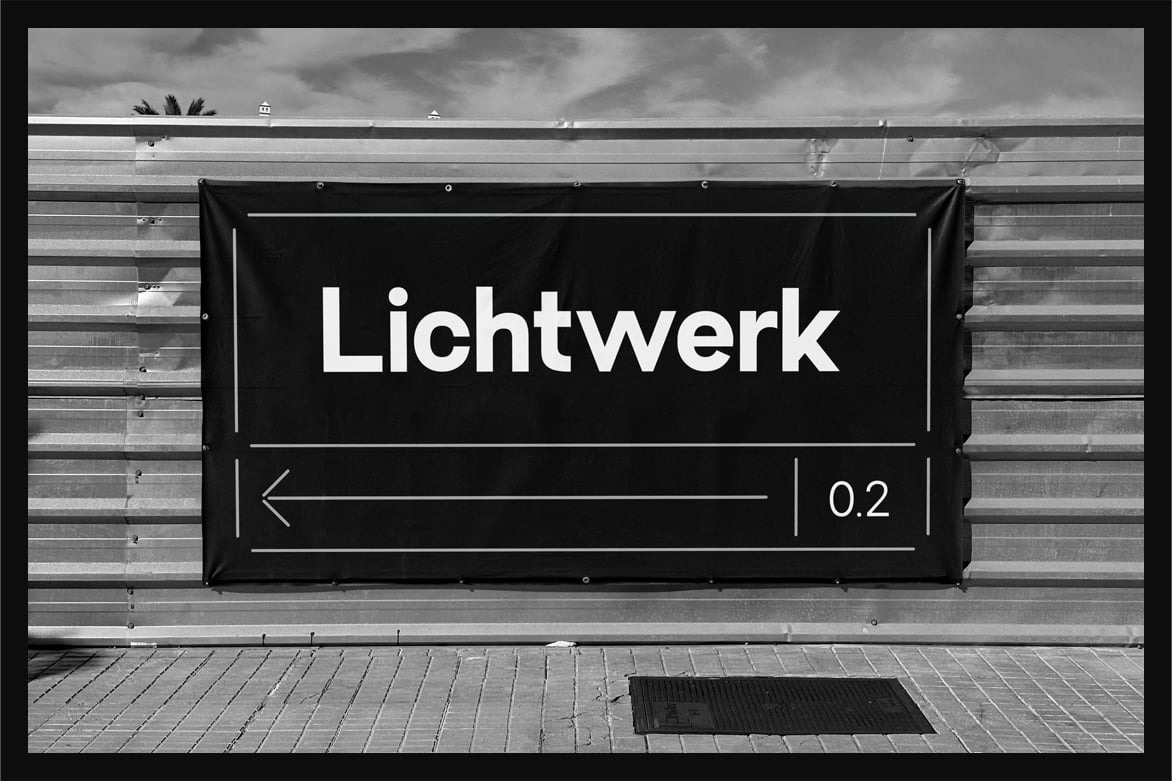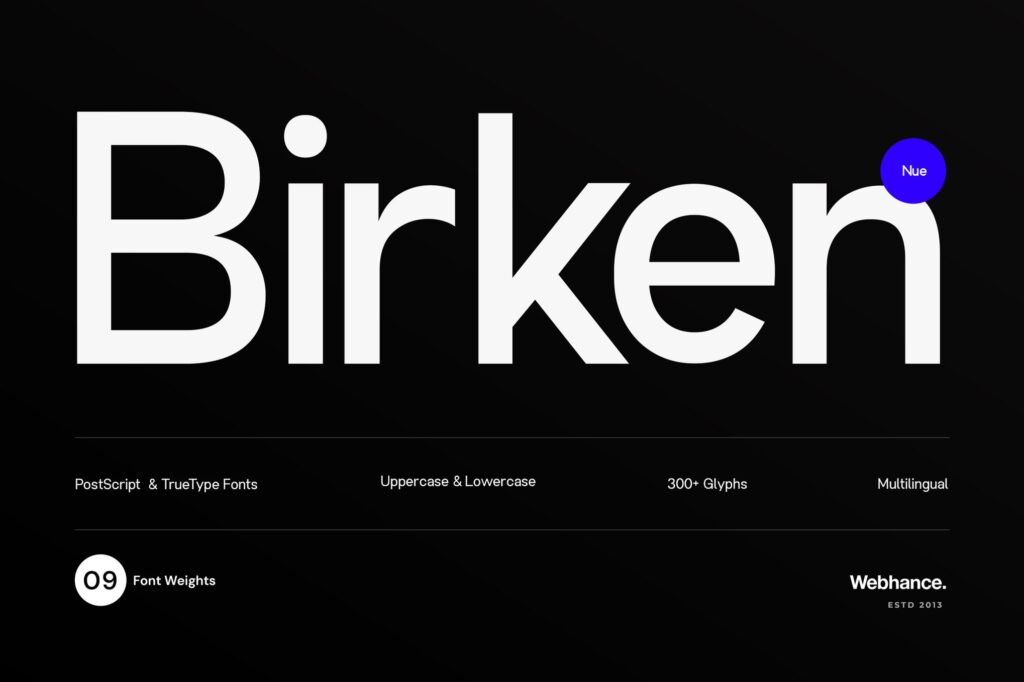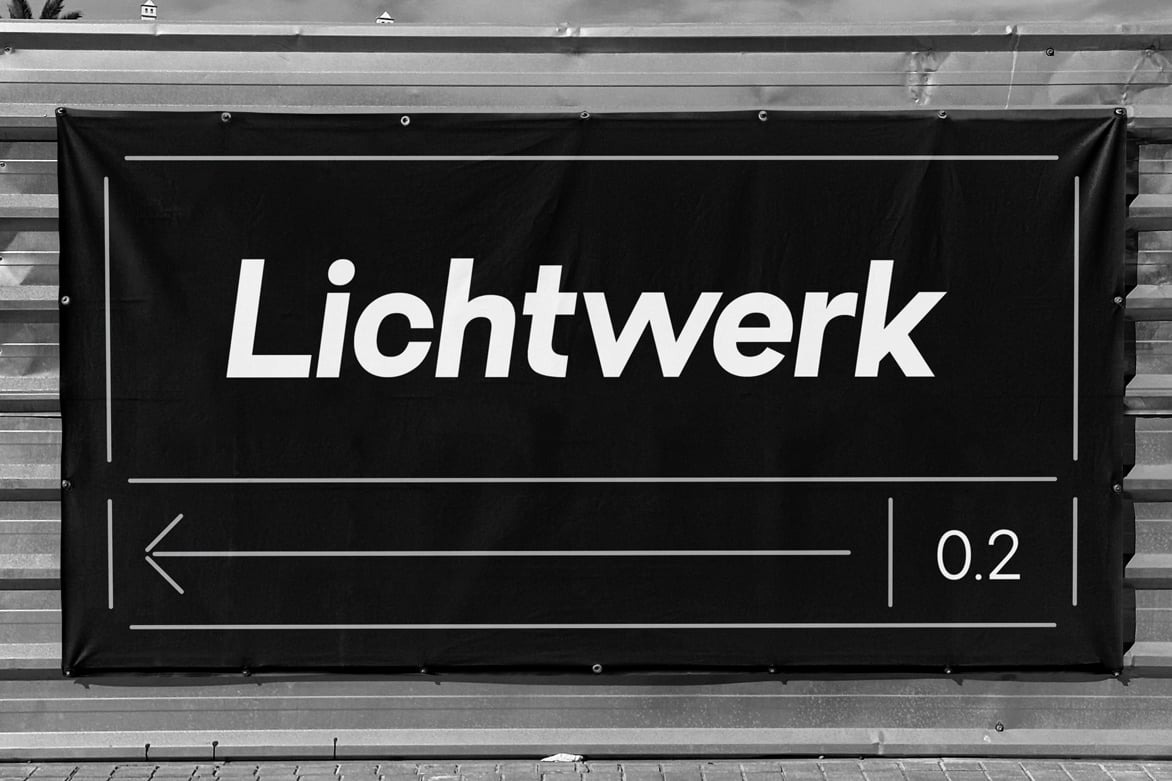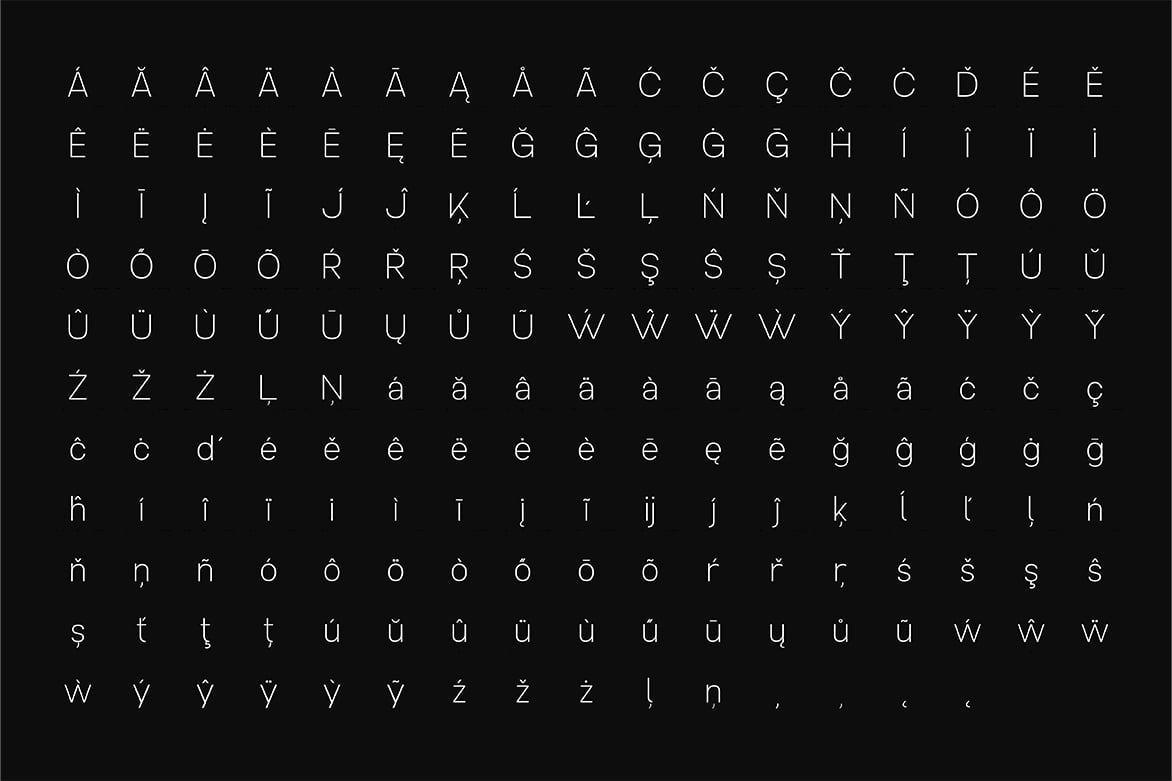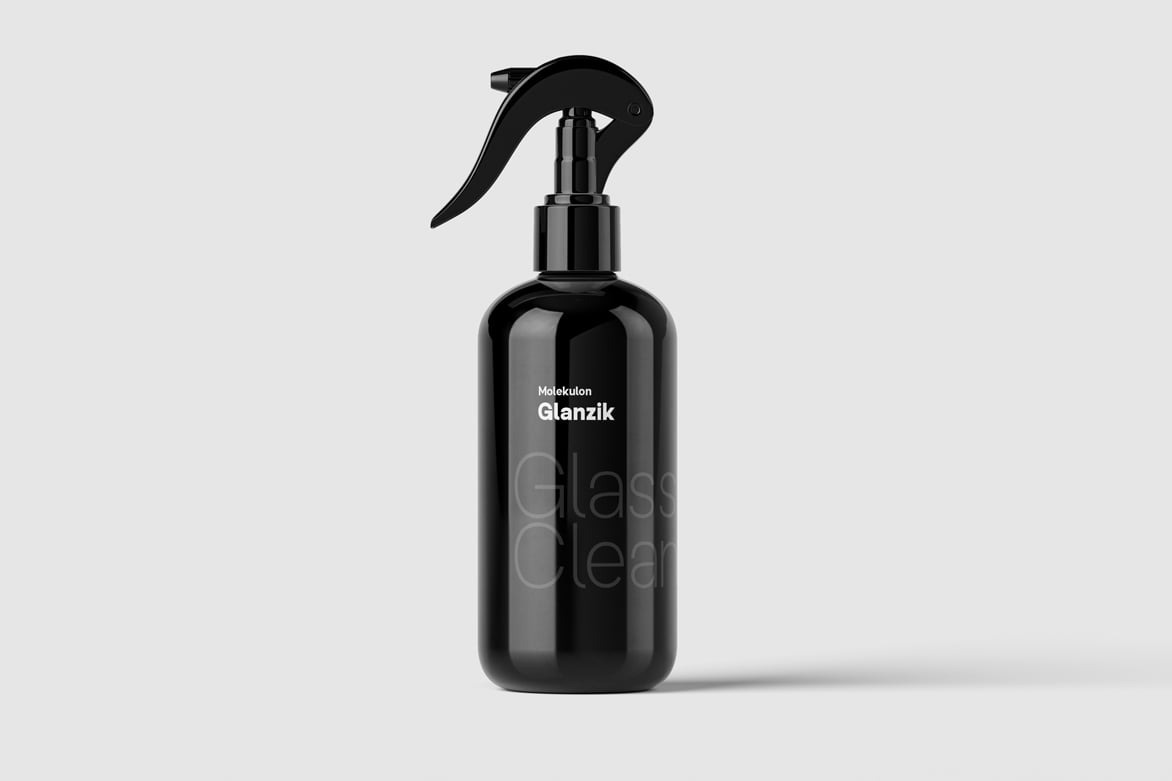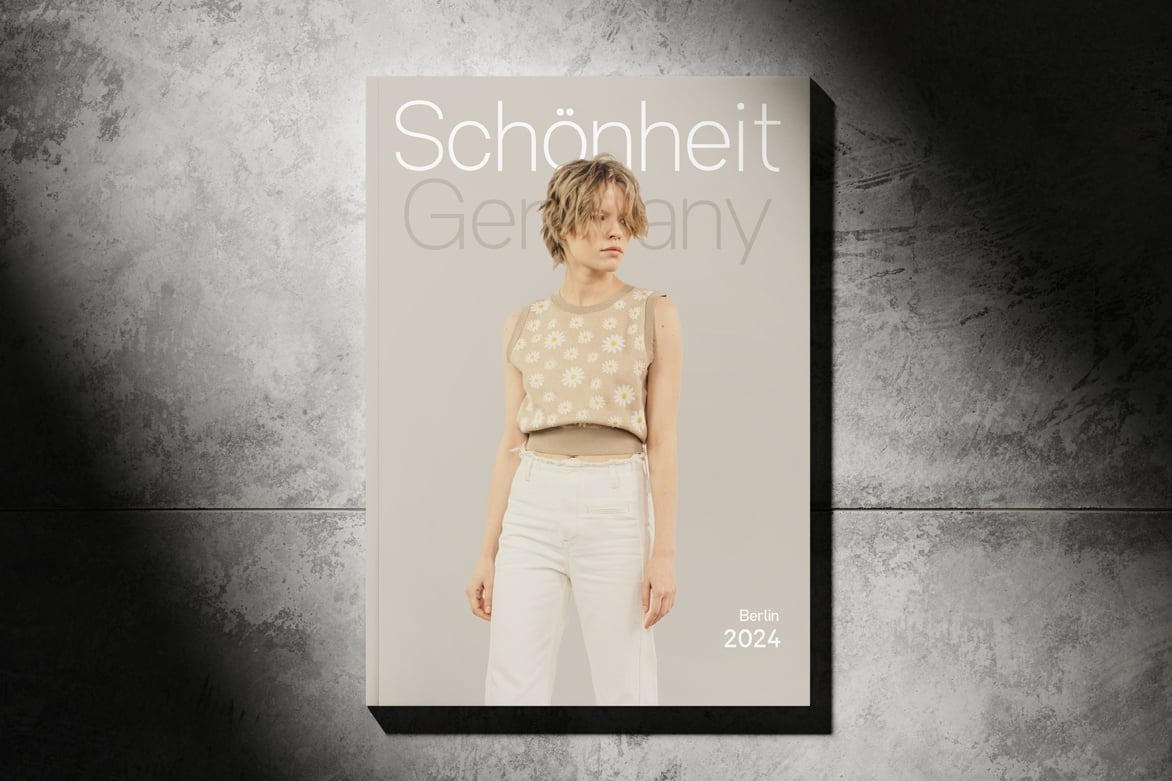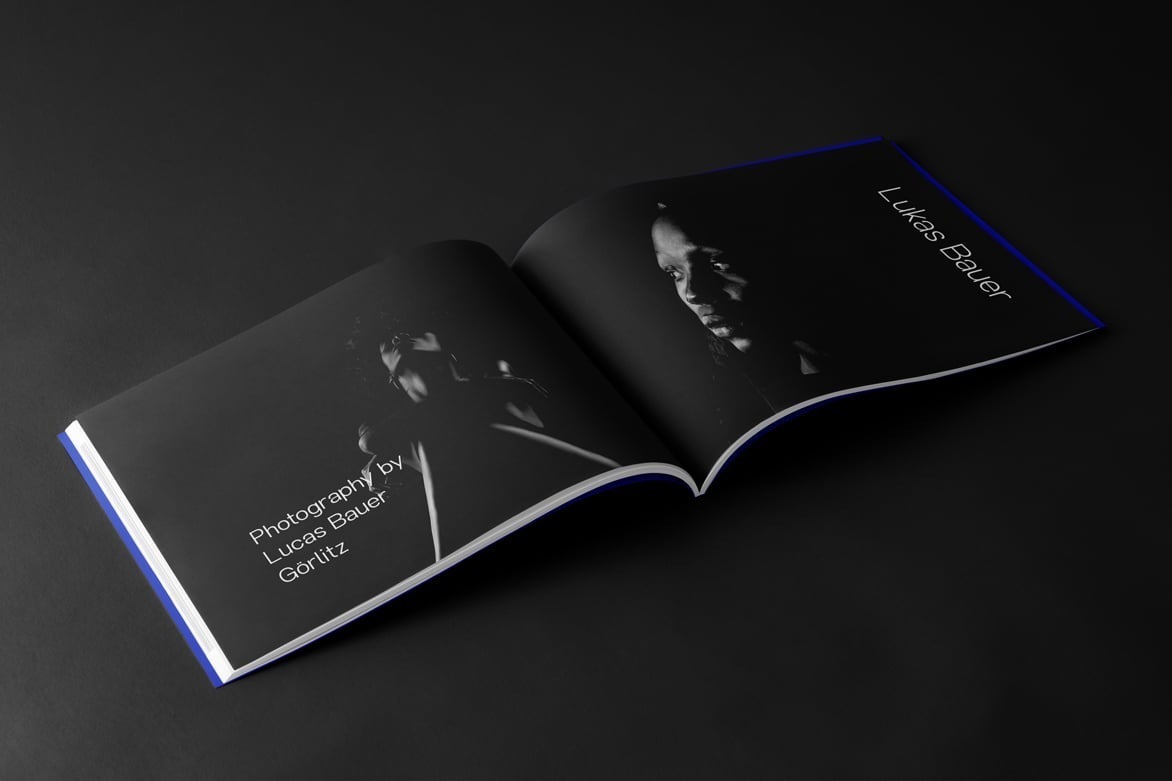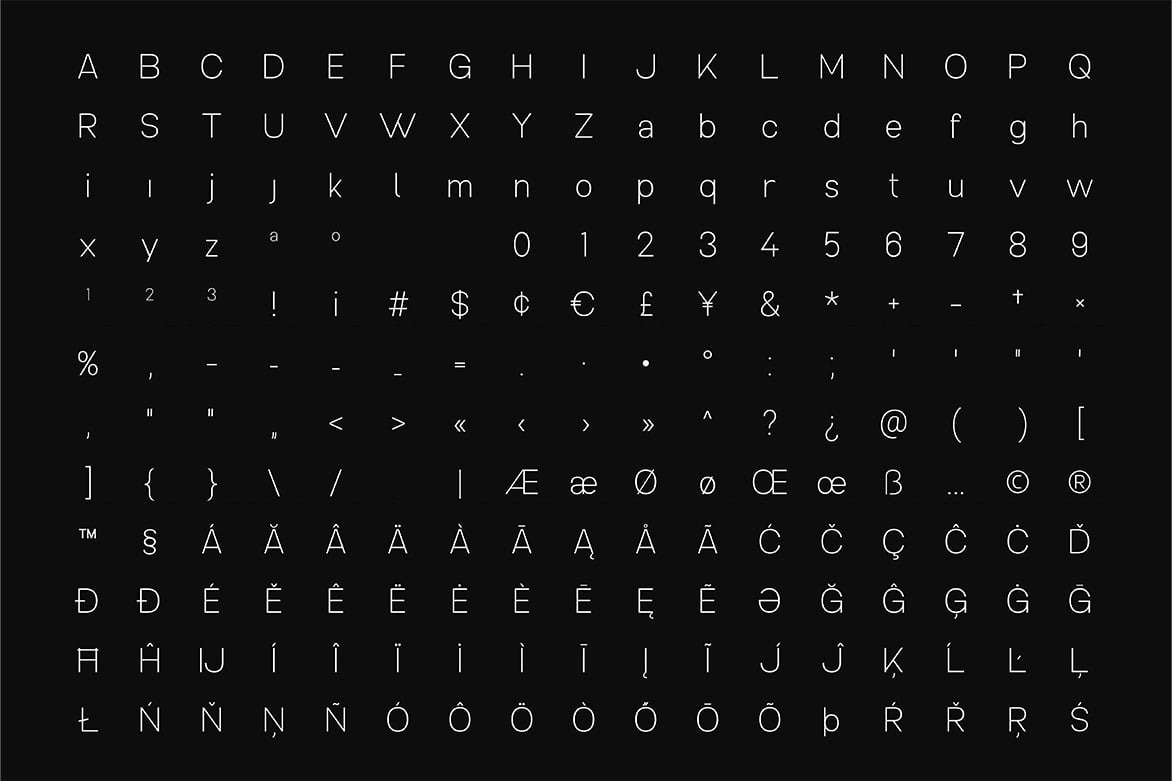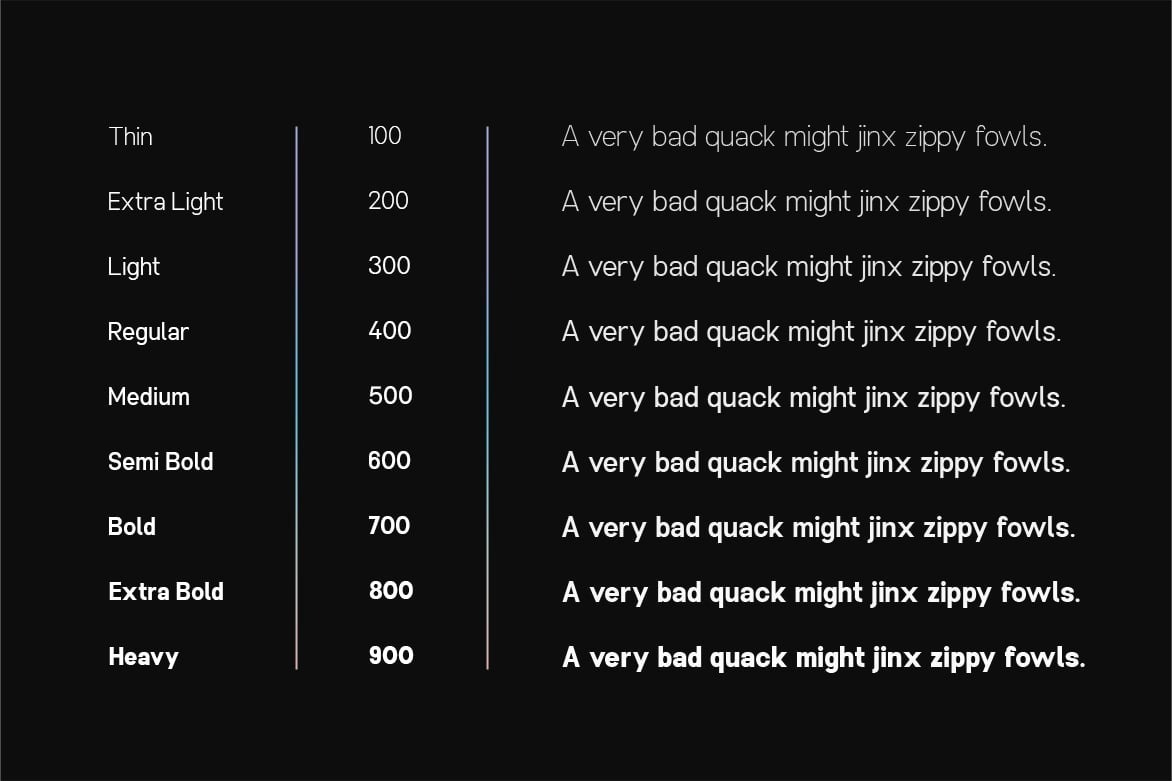
Birken Nue – A Minimal Sans-Serif Font Family
Introducing Birken Nue, a versatile and refined sans-serif font family, carefully crafted to enhance your design projects with its sleek, modern aesthetic. Featuring 09 finely tuned weights, from Thin to Heavy (100 to 900 ), along with web fonts.
Perfect for branding, logos, websites, social media graphics, Instagram posts, Facebook ads, Pinterest designs, TikTok videos, poster designs, YouTube thumbnails, editorial layouts, and more, Birken Nue seamlessly adapts to both print and digital formats. Its clean lines and balanced proportions ensure exceptional clarity and readability, making it an ideal choice for app interfaces, online ads, and e-commerce designs.
Introducing Birken Nue, a versatile and refined sans-serif font family, carefully crafted to enhance your design projects with its sleek, modern aesthetic. Featuring 09 finely tuned weights, from Thin to Heavy (100 to 900 ), along with web fonts. Perfect for branding, logos, websites, social media graphics, Instagram posts, Facebook ads, Pinterest designs, TikTok videos, poster designs, YouTube thumbnails, editorial layouts, and more, Birken Nue seamlessly adapts to both print and digital formats. Its clean lines and balanced proportions ensure exceptional clarity and readability, making it an ideal choice for app interfaces, online ads, and e-commerce designs.